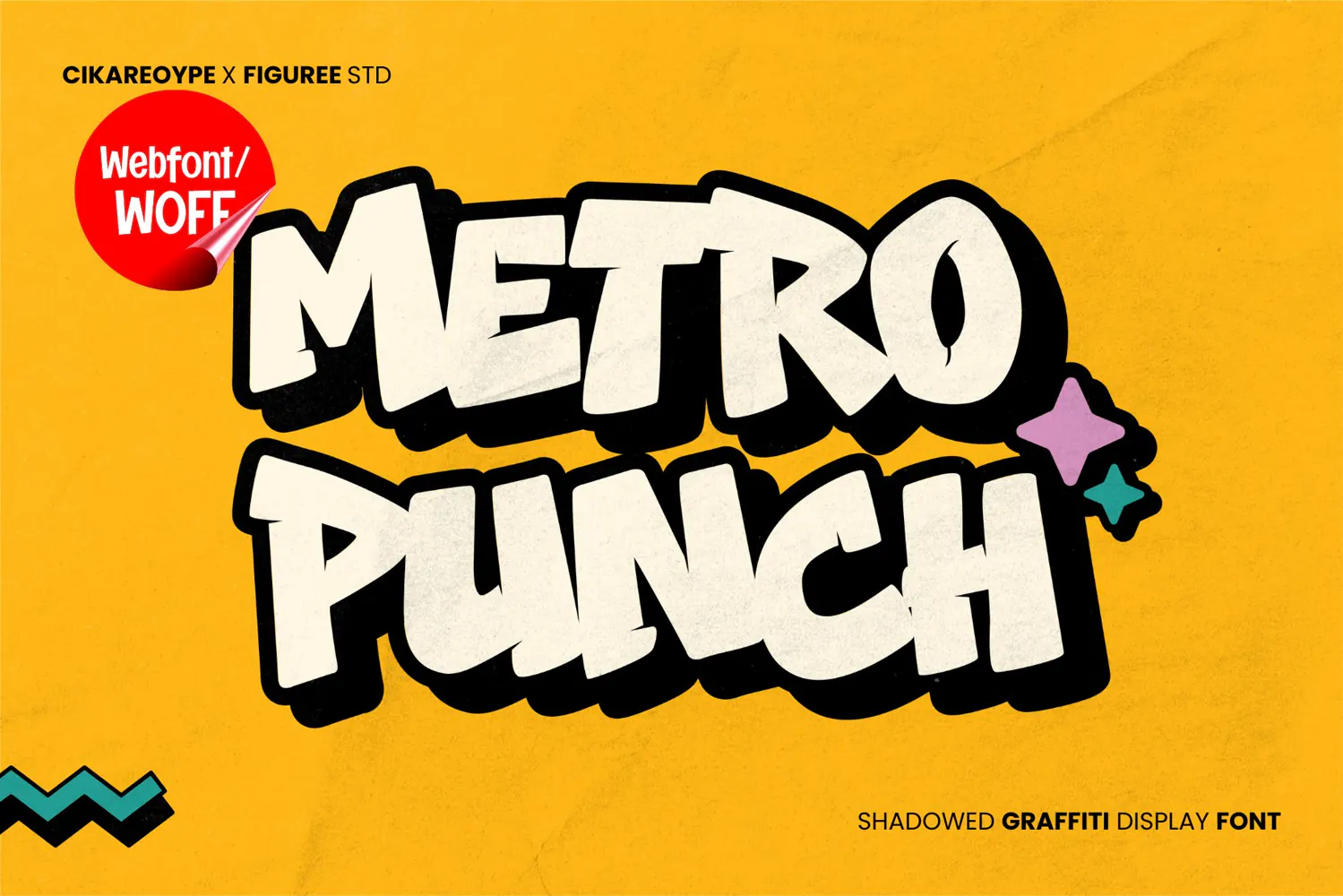
Metro Punch - Shadowed Retro Graffiti Webfont
Metro Punch is a bold shadowed retro graffiti webfont created to bring vintage street energy and dimensional typography to modern websites. Inspired by old-school graffiti, classic signage, skate graphics, and urban poster design, its strong uppercase characters create eye-catching digital headlines with a distinctive retro personality.
Metro Punch is ideal for website hero sections, landing page headlines, promotional banners, brand names, campaign titles, event websites, fashion stores, music platforms, skate brands, creative portfolios, and urban lifestyle websites. Its shadowed appearance adds visual depth to important text while maintaining the bold character needed for modern display typography.
The font includes uppercase characters, multilingual support, numbers, and punctuation, making it suitable for international digital projects. It works especially well when paired with clean supporting typography, allowing the shadowed graffiti lettering to become the main visual focus of a page.
Metro Punch is particularly effective with retro web layouts featuring distressed textures, halftone graphics, vintage photography, bold color combinations, street illustrations, and classic advertising elements. Use it for fashion campaigns, music promotions, product launches, event pages, promotional banners, and urban brand websites.